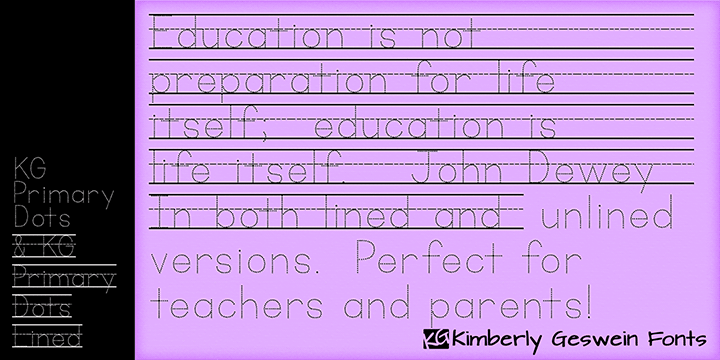
Font name: | KG Primary Dots |
Categories | Script, School |
Perfect for teaching kids to write, these dotted letters are easy to trace. In both lined and unlined versions. Create blank lines by typing with the spacebar on the lined version. Free for personal use. For commercial licensing, please see http://kimberlygeswein.com |